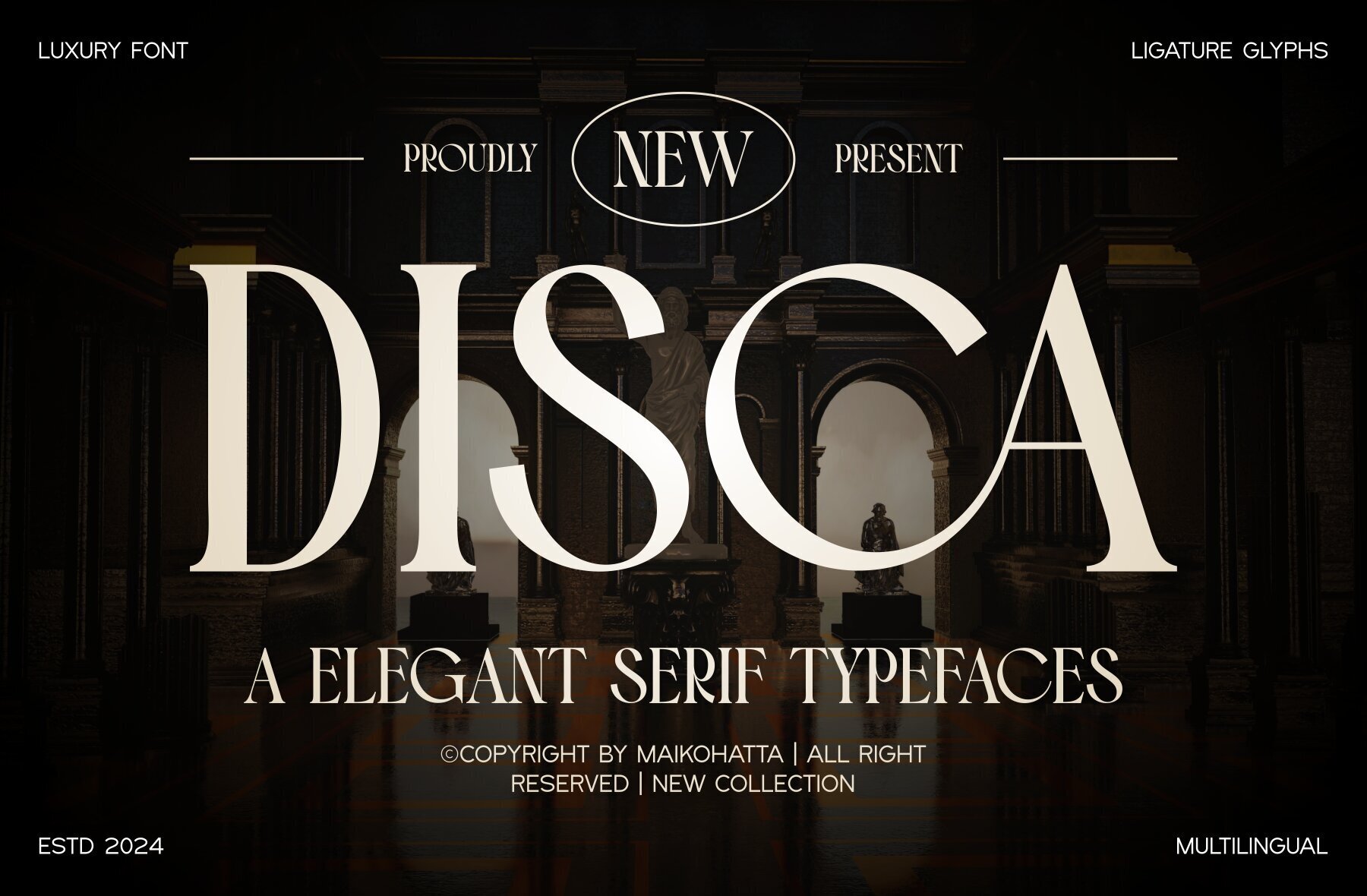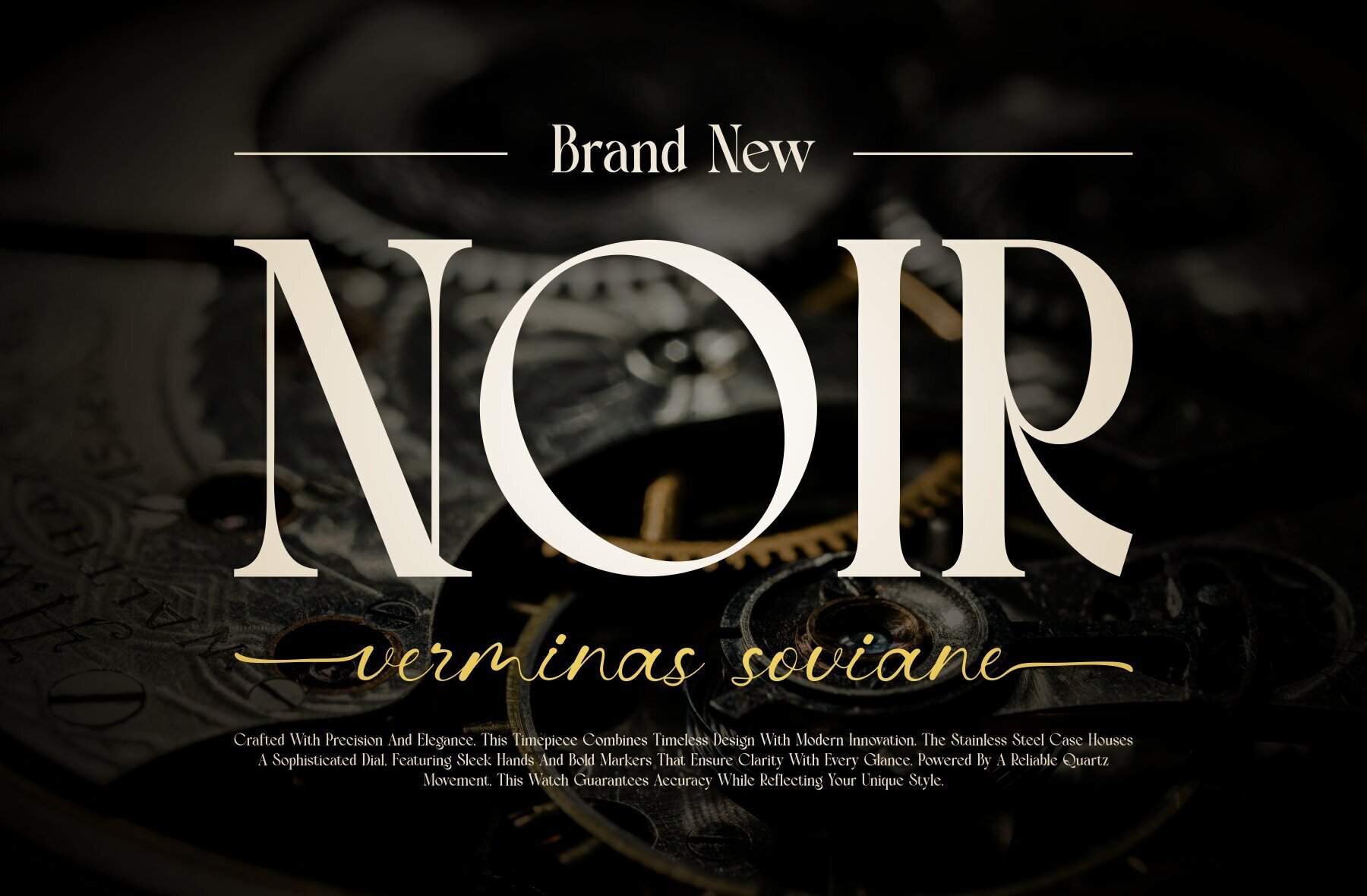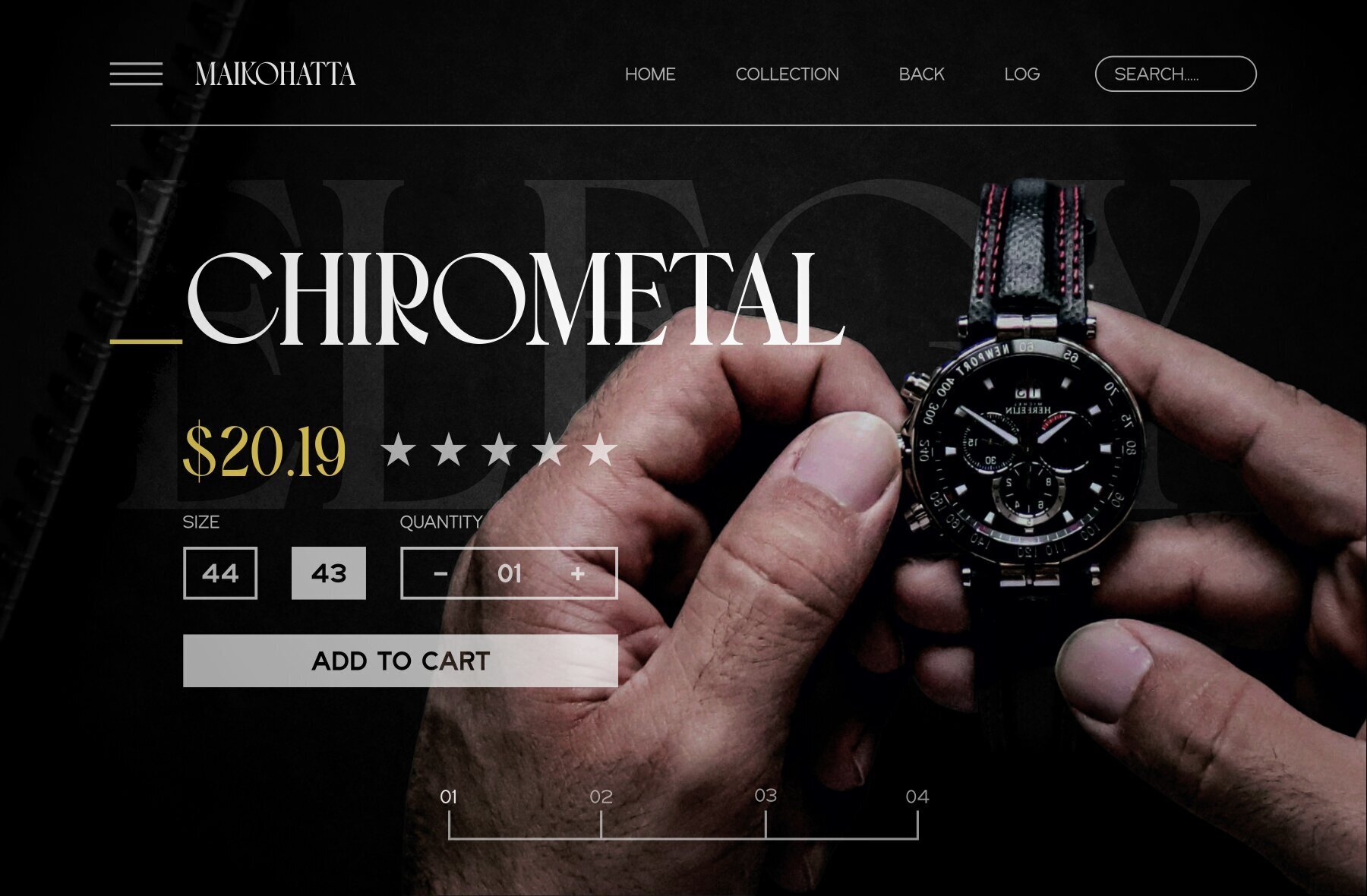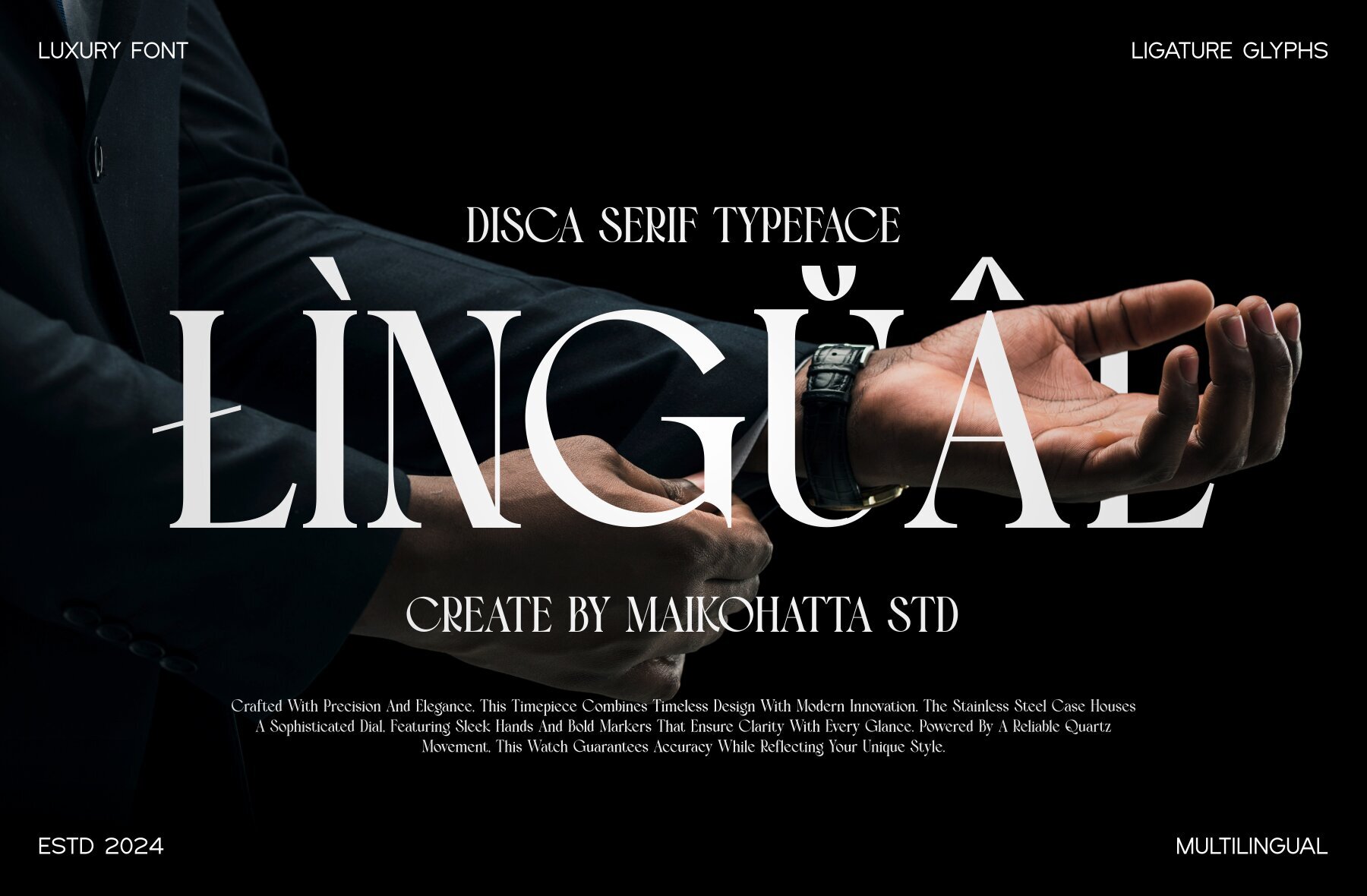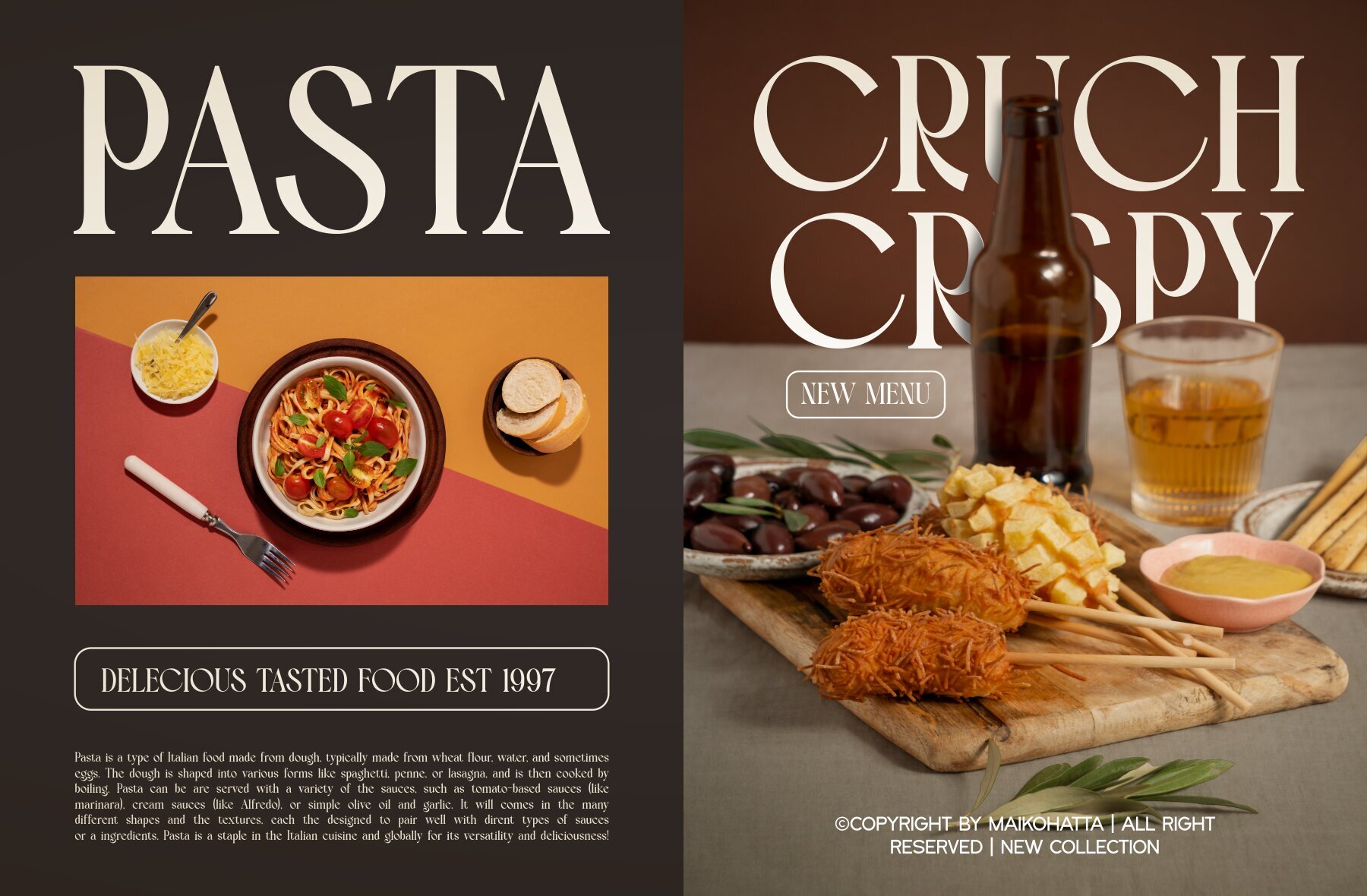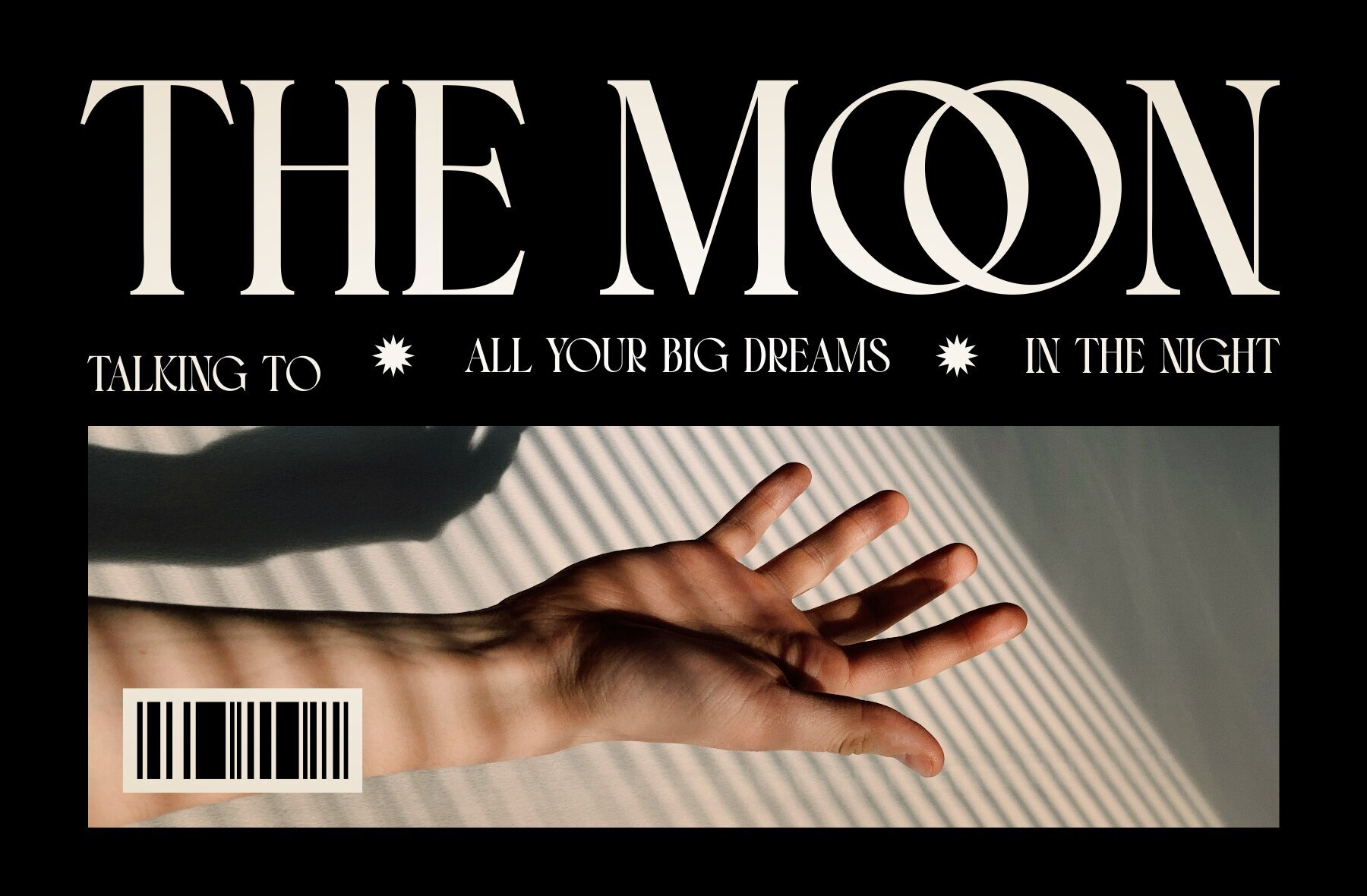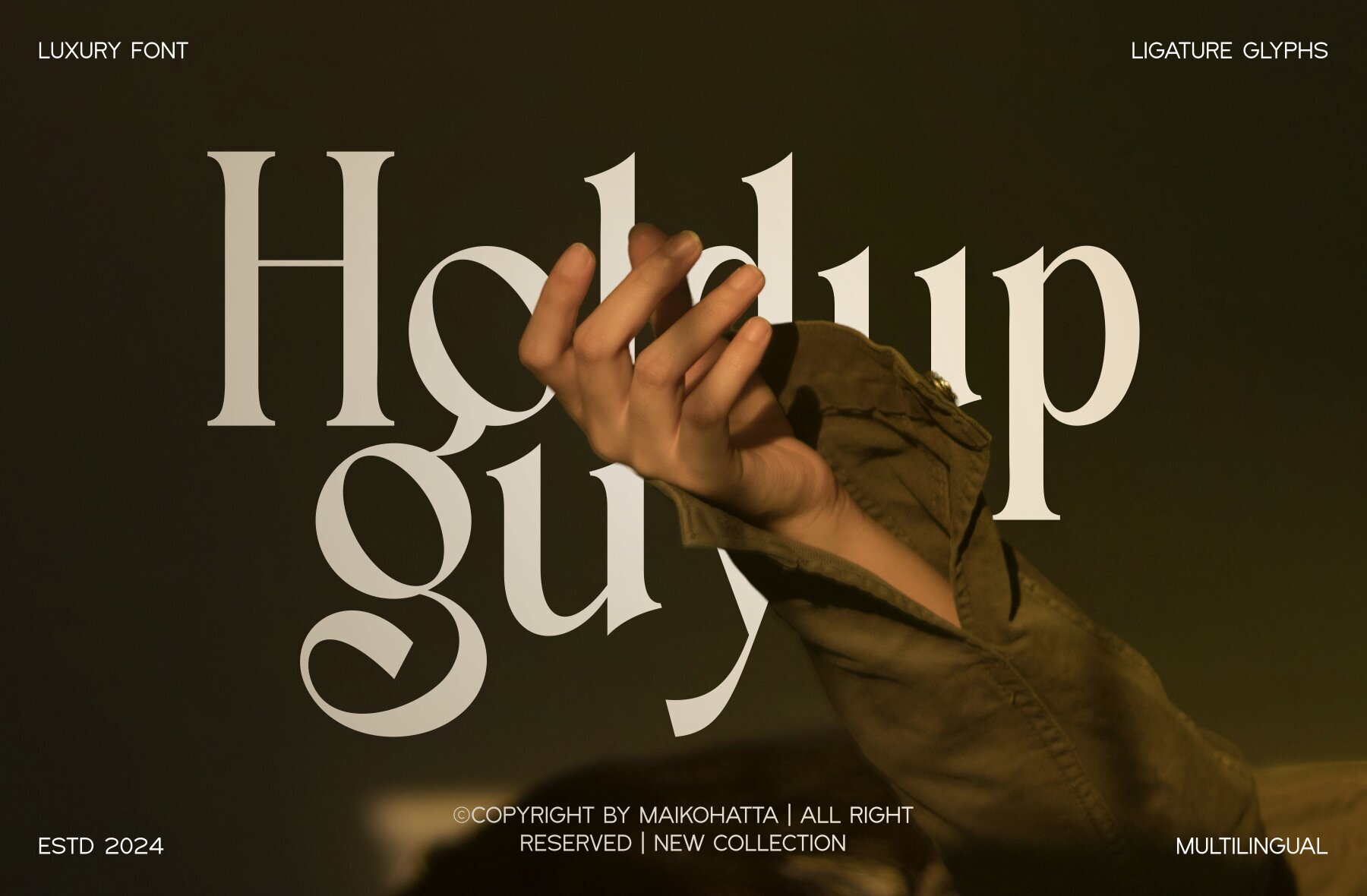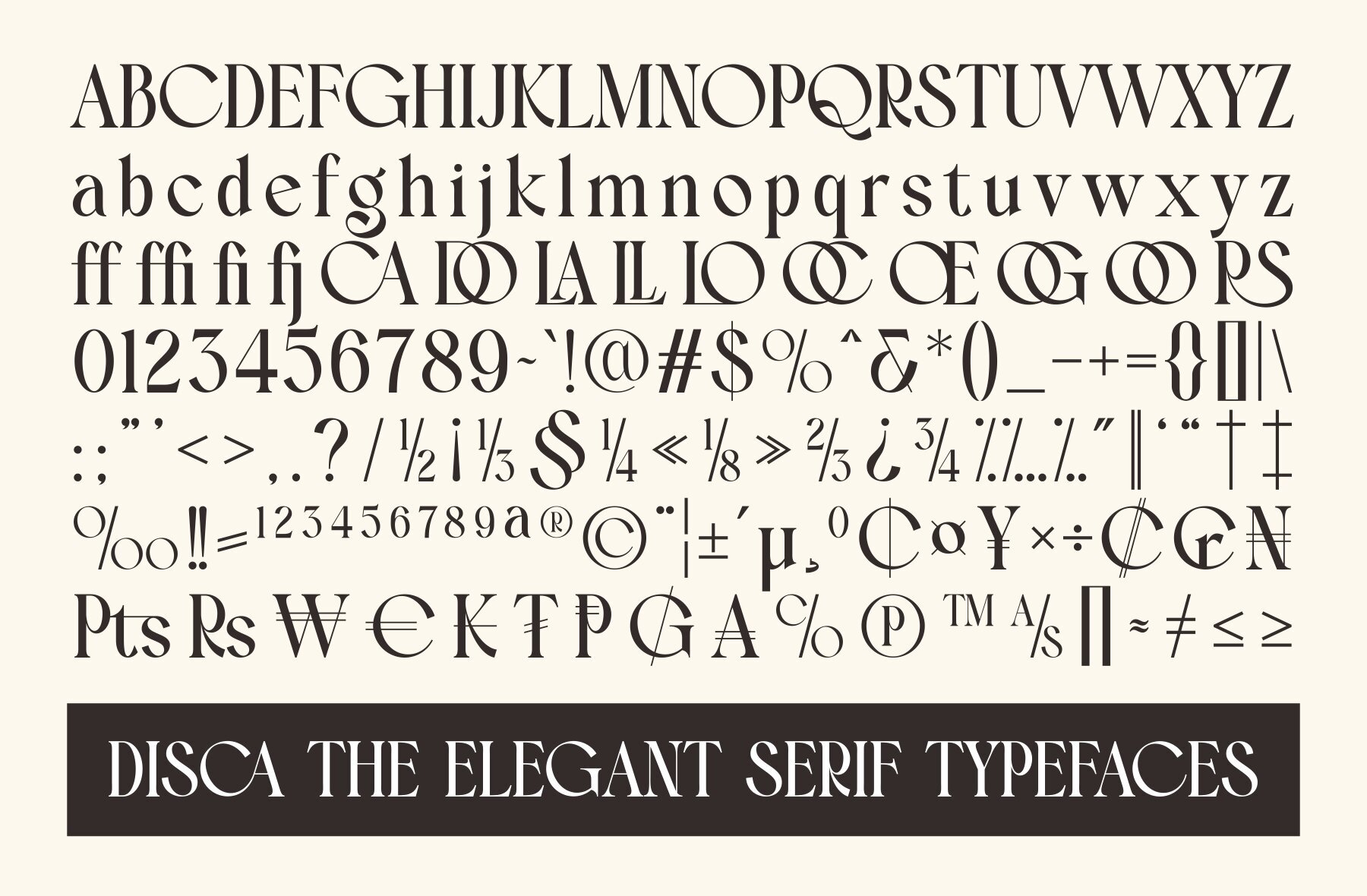
Disca 1
Introducing an elegant serif typeface designed to infuse your projects with luxury and sophistication. This font features distinct characteristics that combine luxury, elegance, and firmness. The design showcases meticulously balanced thin and thick lines, complemented by gentle curves and sleek serifs. Each character is crafted with sharp corners and intricate details, contributing to its highly aesthetic appeal.
Perfect for adding a touch of refinement to your designs, this serif typeface is ideal for both print and digital media. Its clean lines and elegant structure make it suitable for a variety of applications, including branding, editorial design, and more. Embrace the timeless elegance and sophistication this typeface offers to elevate your design work to new heights.